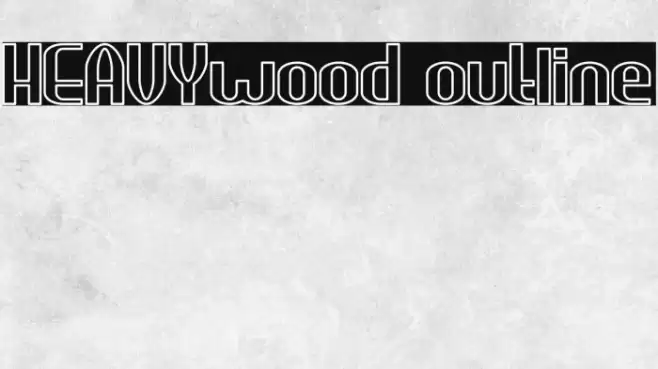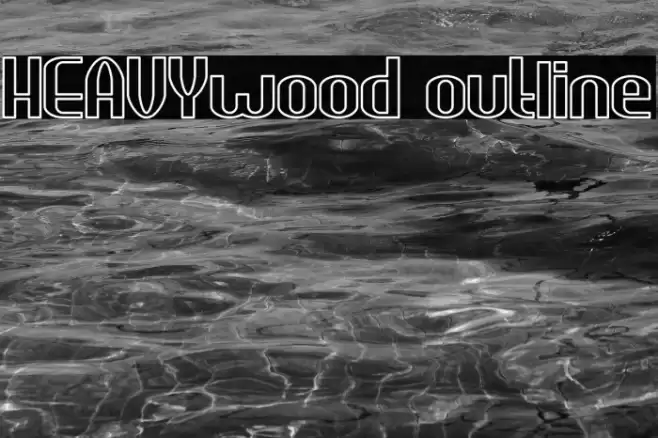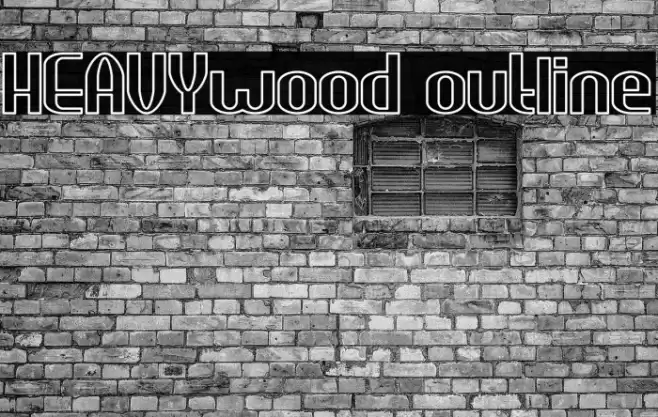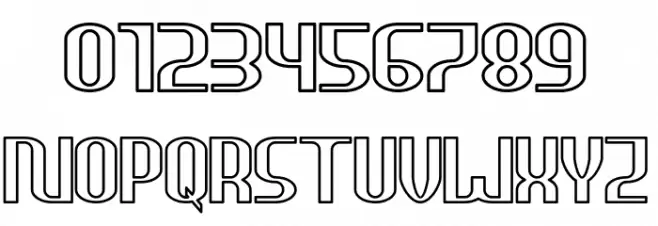
HEAVYwood outline Font
HEAVYwood outline Description
This font features a bold, geometric outline style that emphasizes its modern and futuristic aesthetic. The characters are constructed with clean, straight lines and sharp angles, giving them a structured and architectural feel. The uppercase and lowercase letters share a consistent design, maintaining uniformity across the typeface. The numbers and special characters are designed to match the overall style, ensuring a cohesive look. The outline nature of the font adds a unique dimension, making it suitable for eye-catching designs.
A bold, geometric outline font with a modern and structured aesthetic from Regular fonts.